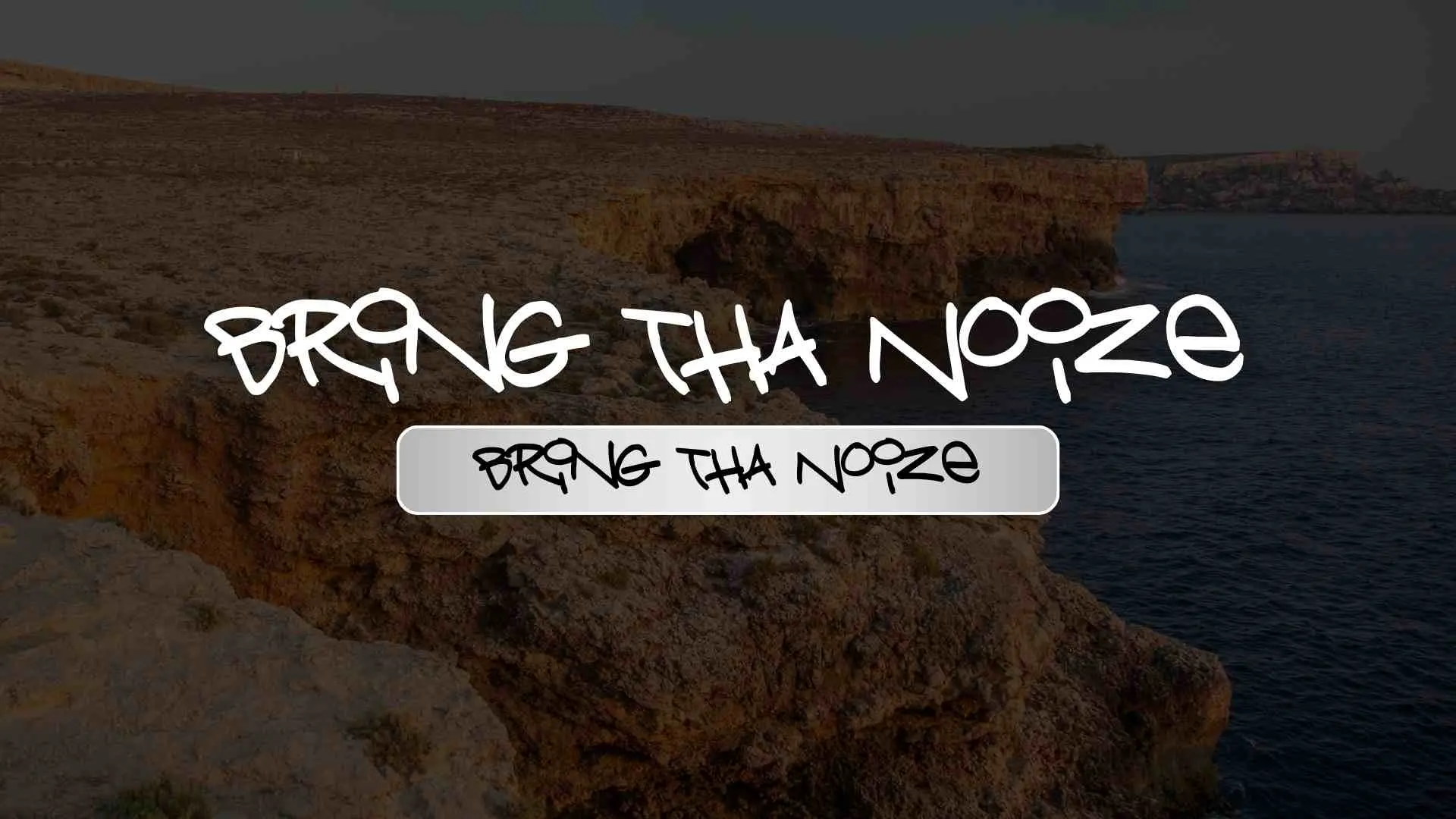
Bring Tha Noize Regular
The font Bring Tha Noize Regular, designed by Jakob Fischer, falls under the Display category & Bring Tha Noize font family. Its smooth, flowing letterforms make it a versatile choice for projects that require both elegance and readability. Bring Tha Noize is particularly well-suited for Event Posters, Crafting, Event flyers, Personal projects, Entertainment, T-shirt, Apparel Design and Music. With its balance of simplicity and decorative appeal, this font brings a polished touch to both personal and professional designs.